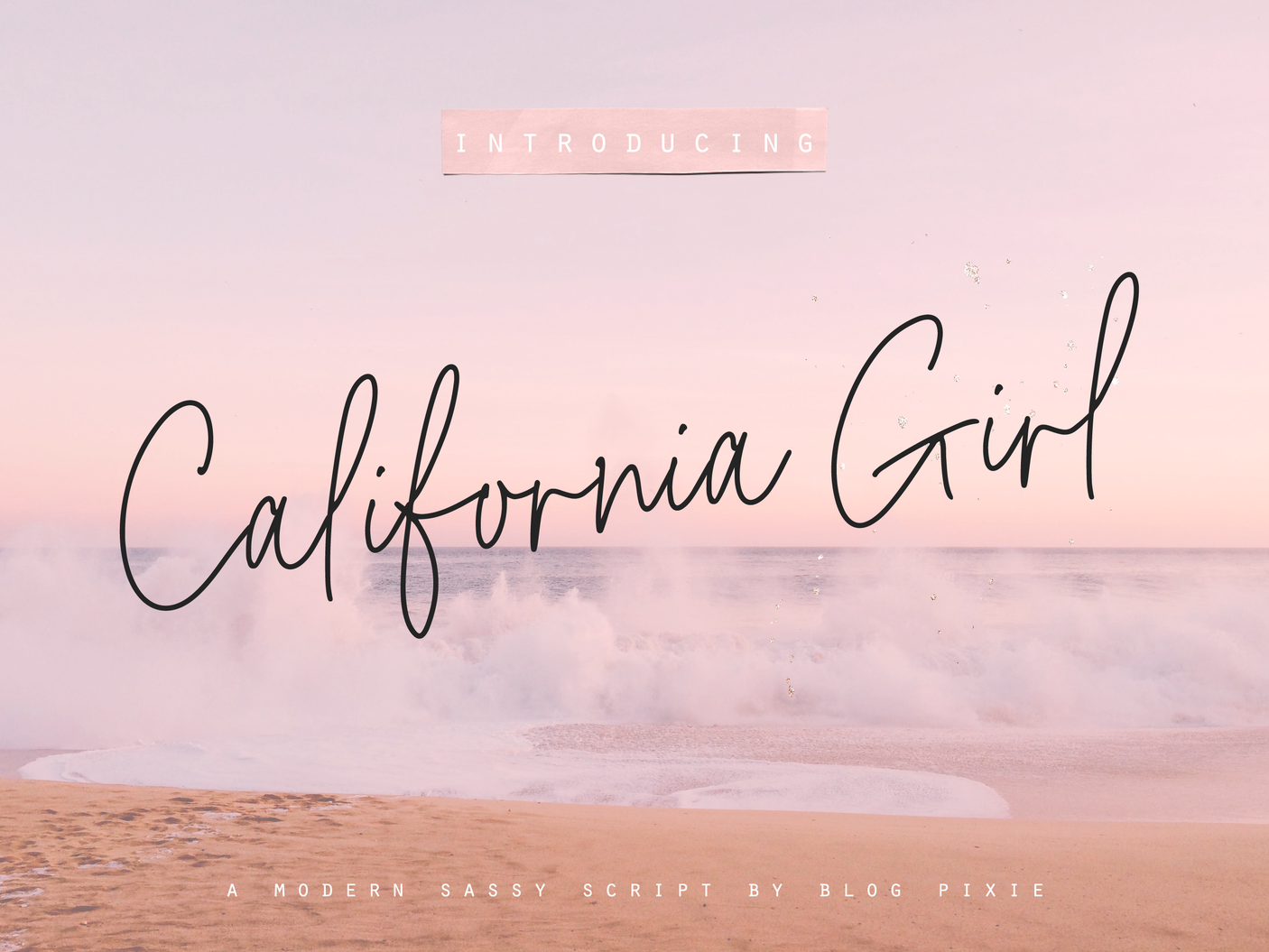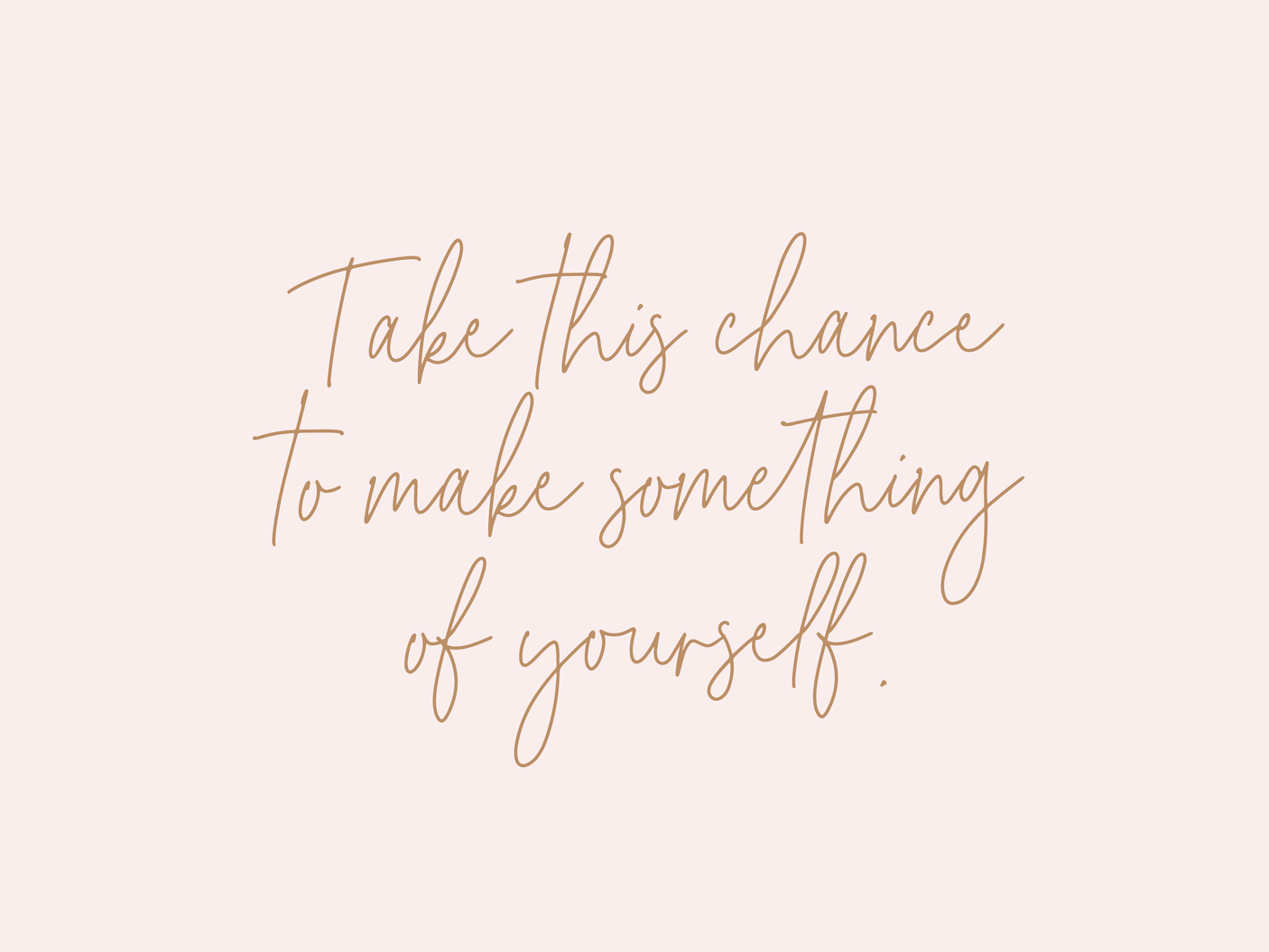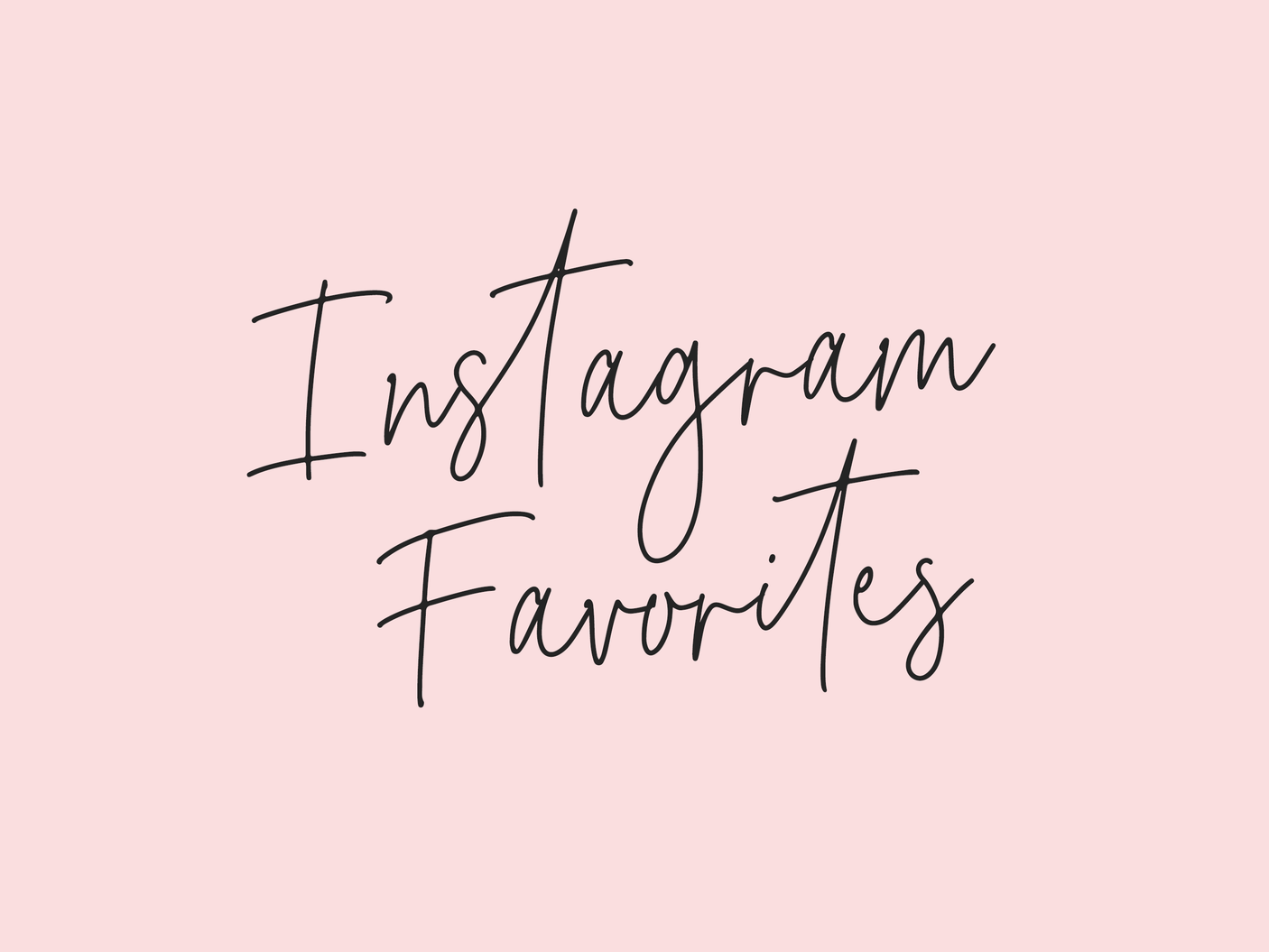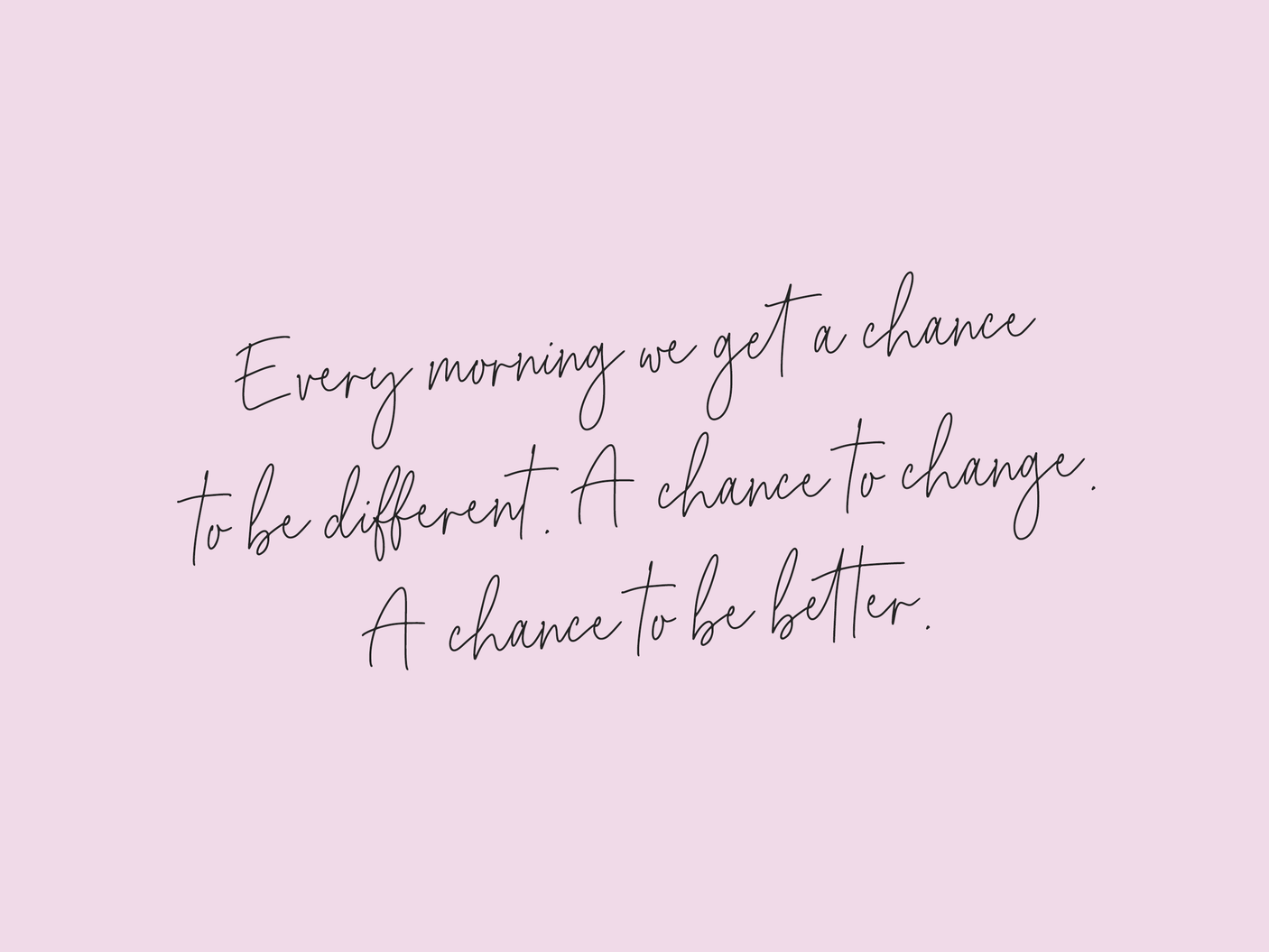
California Girl Font
California Girl font is a modern, sassy handwritten script. This modern handwritten script font adds a touch of personality to any project. Stand out and make a statement with this sassy font that is perfect for logos, branding, and more.
The perfect font to achieve a trendy handwriting style for your project, California Girl looks great both as titles and as a body of text.